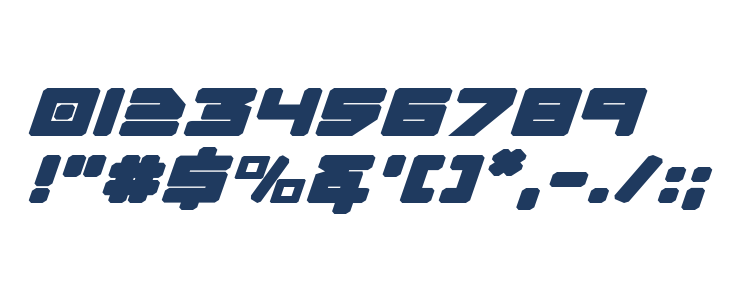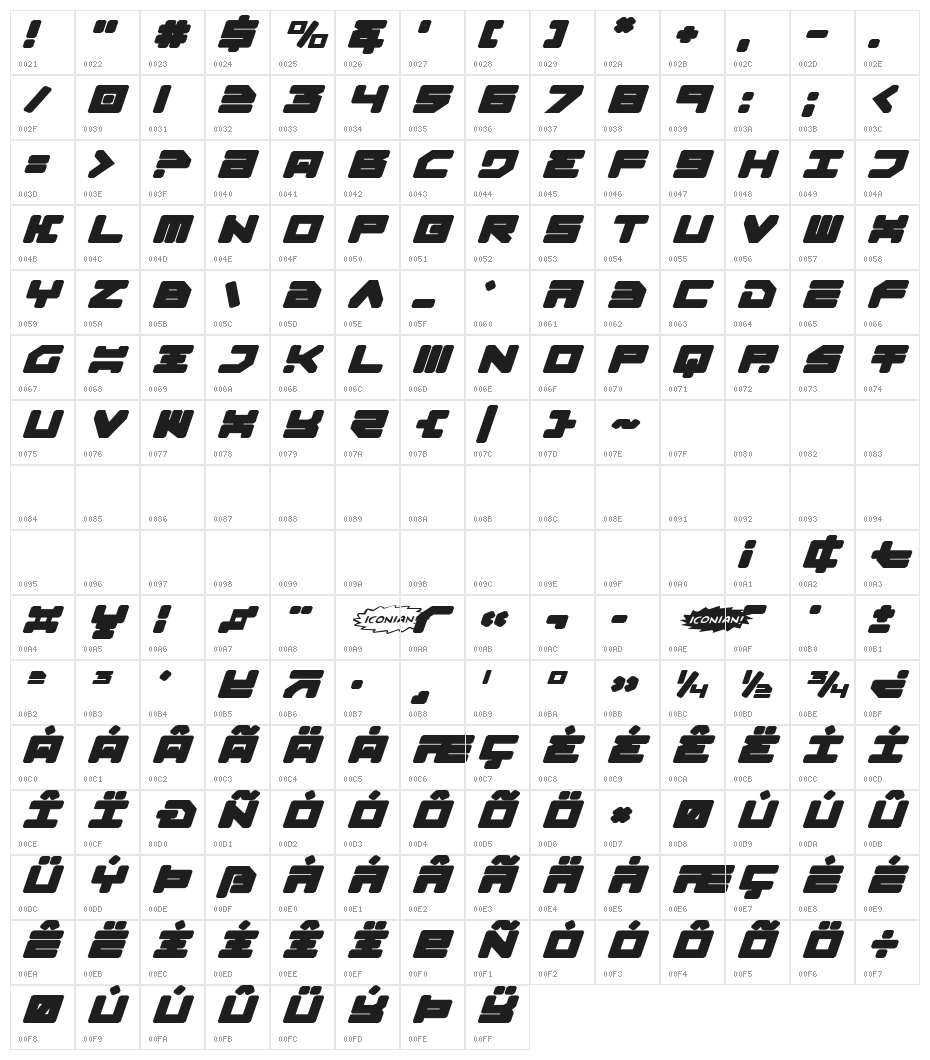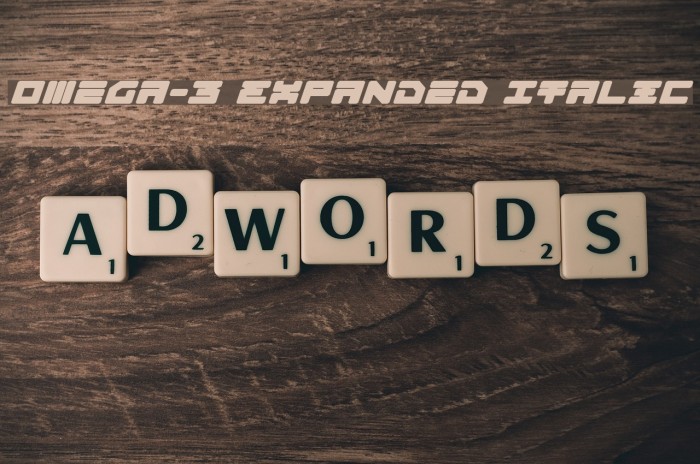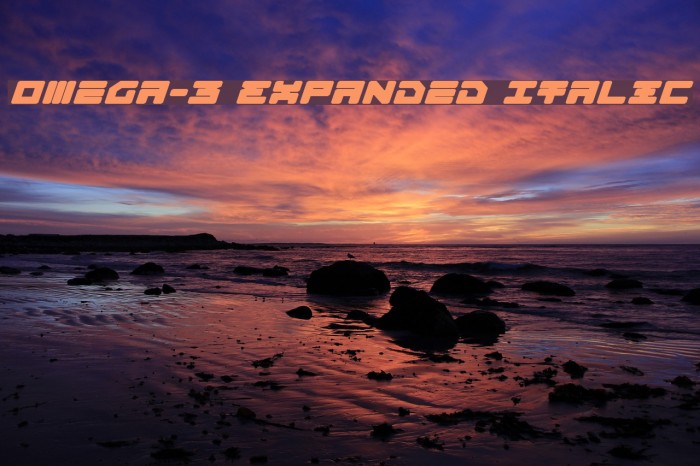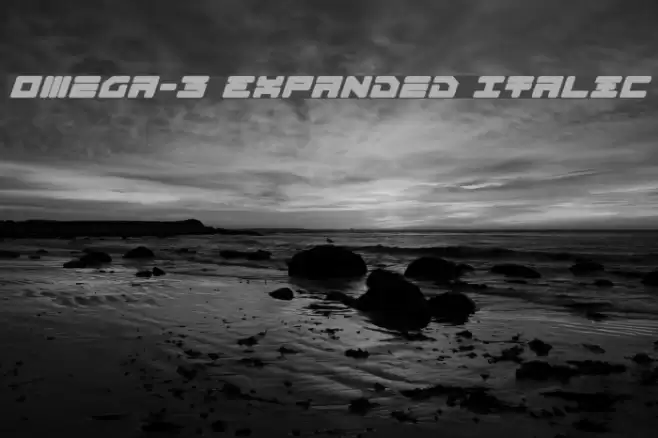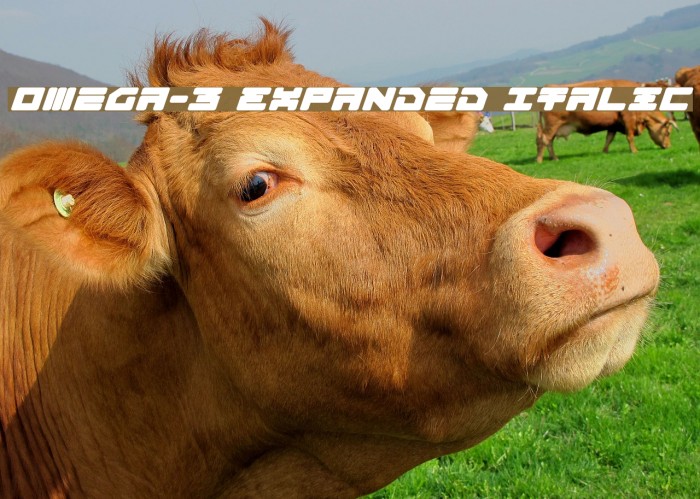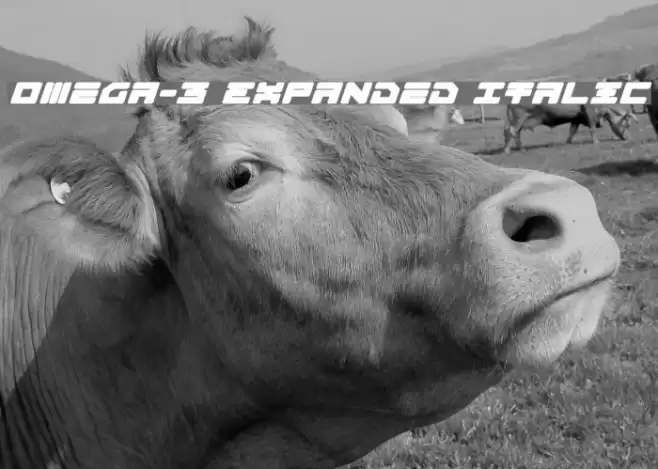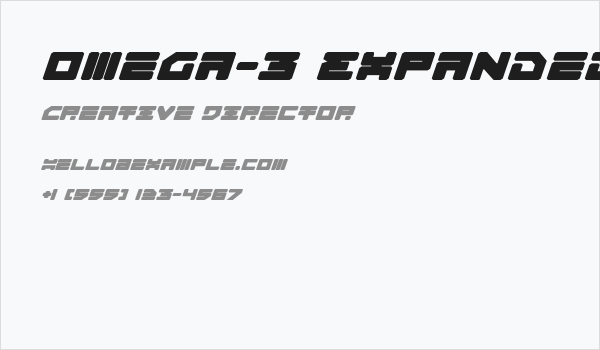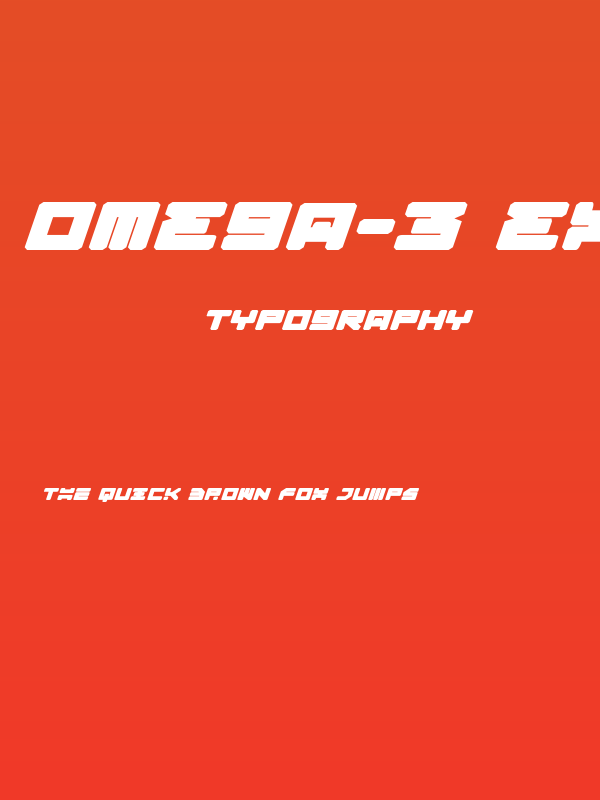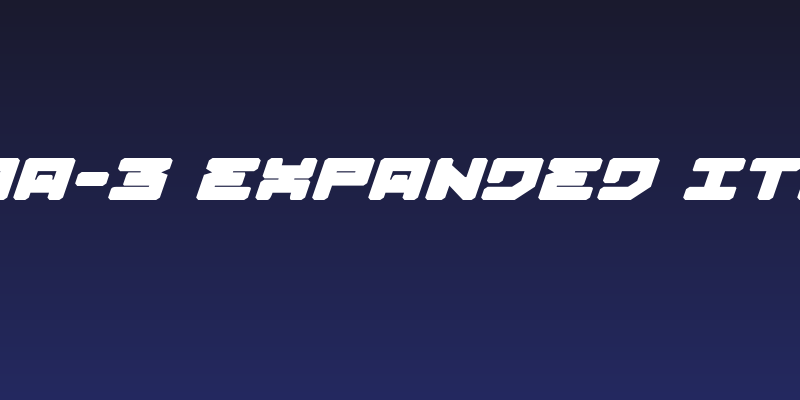
Omega-3 Expanded Italic Font
Omega-3 Expanded Italic Description
This font features a bold, futuristic design with an expanded and italicized style. The characters are wide and have a strong presence, making them ideal for attention-grabbing headlines or logos. The geometric shapes and sharp angles give it a modern and dynamic appearance. The consistent stroke thickness across all characters provides a uniform look, while the italic slant adds a sense of motion and speed. The font includes a full set of uppercase and lowercase letters, numbers, and a variety of special characters, ensuring versatility for different design needs.
| Proposed Projects | Ideal for sci-fi themed projects, technology branding, video game titles, and dynamic posters. |